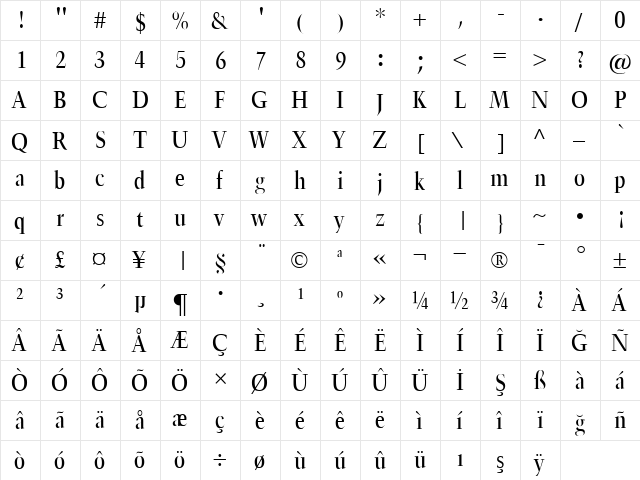
00830 Regular
Design Context for 00830 Typeface
00830 takes a measured approach to typography — its balanced proportions and neutral character make it a reliable workhorse for both digital and print work.